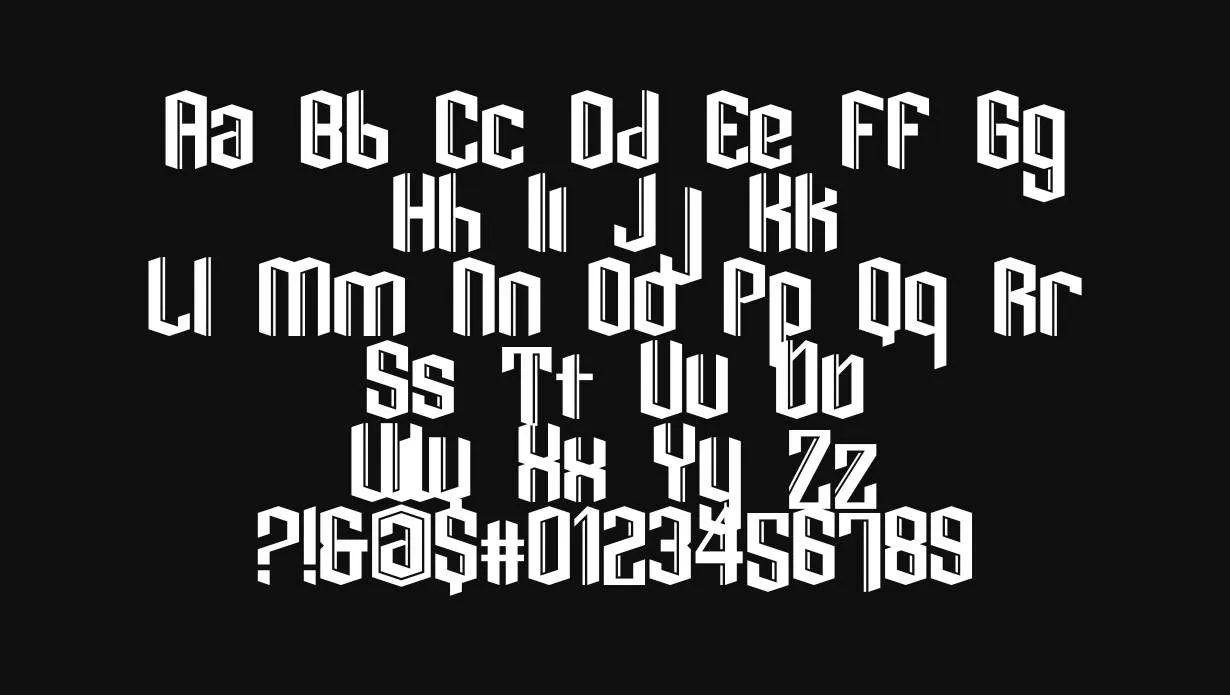
The Dark Knight Font takes inspiration from the typography used in the Batman franchise and is commonly selected for projects revolving around superheroes and action films.
It adds an element of mystery and vigilante justice to your design work.